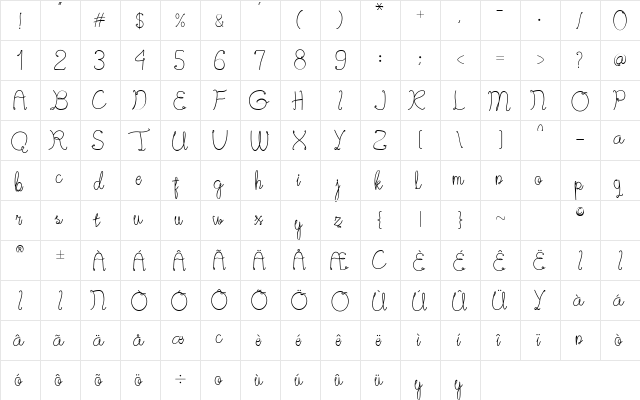
Westburry Regular
| Foundry | LetterDeen Co. |
| Designer | Muhammad Wahyudin |
Westburry is a composed and adaptable typeface that performs quietly and consistently across a wide range of design contexts.